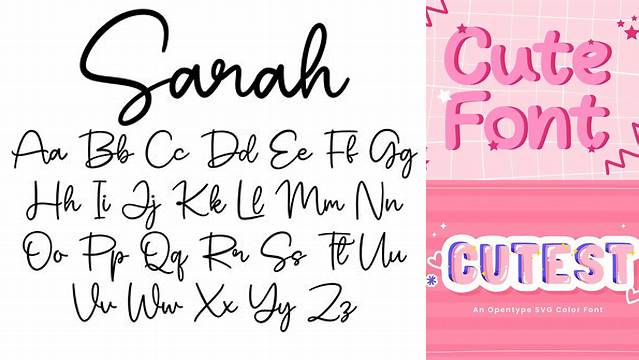
Cute Free Fonts For Procreate: Download Now!
Hey guys! Ready to take your Procreate art to the next level? One of the easiest ways to add personality and flair to your creations is by using adorable fonts. But let's be real, finding the perfect free cute font can feel like searching for a needle in a haystack. That’s why I've put together this guide to help you discover some amazing, budget-friendly fonts that will make your artwork pop. Get ready to unleash your inner artist with these fantastic finds!
1. The Magic of Cute Fonts in Procreate
Let's kick things off by talking about why free cute fonts for Procreate are so essential for artists. Think about it: a great font can transform a simple illustration into a captivating piece of art. Cute fonts have the power to evoke emotions, add a touch of playfulness, and perfectly complement your designs. Whether you're creating whimsical illustrations, eye-catching social media graphics, or charming hand-lettered quotes, the right font can make all the difference. It's like the cherry on top of your creative sundae! When choosing fonts, consider the overall vibe you're going for. A bubbly, rounded font might be perfect for a children's book illustration, while a quirky, hand-drawn font could add a unique touch to your branding materials. The key is to experiment and find fonts that resonate with your artistic style. Don't be afraid to mix and match fonts to create interesting visual hierarchies and add depth to your designs. Remember, the goal is to enhance your artwork and make it stand out from the crowd, all without breaking the bank.
2. Top Websites for Free Cute Fonts
Alright, let's get down to the good stuff: where can you actually find these free cute fonts for your Procreate projects? The internet is a vast playground of resources, but not all websites are created equal. Here are some of my go-to platforms for discovering awesome fonts without spending a dime. First up, we have Google Fonts. It's a treasure trove of high-quality, open-source fonts that are completely free for personal and commercial use. The best part? You can easily preview the fonts and see how they look with your own text. Next, check out DaFont. This website boasts a massive collection of fonts, ranging from script fonts to display fonts, and everything in between. Just be sure to double-check the license before using a font for commercial projects. Another fantastic option is FontSpace. With a user-friendly interface and a wide selection of free fonts, FontSpace makes it easy to find the perfect font for your needs. Don't forget about Creative Fabrica, which offers a mix of free and premium fonts. They often have freebies available, so keep an eye out for those! Lastly, explore MyFonts, a popular platform for discovering unique and professional fonts. While they primarily offer paid fonts, they occasionally have free font deals that are worth checking out. With these resources at your fingertips, you'll be well on your way to building a killer font library.
5. Pairing Fonts for Maximum Impact
Using free cute fonts effectively isn't just about finding a single awesome font; it's also about pairing fonts strategically to create visual harmony. Think of font pairing as a dance – you want to choose fonts that complement each other and create a balanced composition. One common approach is to pair a display font with a simpler sans-serif font. Display fonts are typically more decorative and eye-catching, while sans-serif fonts are clean and easy to read. For example, you could pair a whimsical script font with a classic sans-serif font like Open Sans or Montserrat. Another popular technique is to pair fonts with contrasting styles. This creates visual interest and helps to differentiate between different elements in your design. For instance, you could pair a bold, modern font with a delicate, hand-drawn font. When pairing fonts, pay attention to the font's weight, size, and spacing. You want to ensure that the fonts are legible and don't clash with each other. A good rule of thumb is to limit yourself to two or three fonts per design to avoid overwhelming the viewer. There are also online tools that can help you find font pairings, such as FontPair and Typewolf. These tools provide curated font combinations that are sure to elevate your designs. Experiment with different pairings and see what works best for your aesthetic. Remember, the goal is to create a visually appealing and cohesive design that effectively communicates your message.
6. Best Free Script Fonts for Procreate
Let's dive into some specific font styles, starting with free cute script fonts for Procreate. Script fonts are elegant, flowing fonts that resemble handwriting. They're perfect for adding a touch of sophistication and personality to your designs. Some of my favorite free script fonts include Hello Sunshine, a playful and whimsical font that's perfect for invitations and greeting cards. Another great option is Lemon Jelly, a sweet and charming font that's ideal for branding and social media graphics. If you're looking for something a bit more modern, check out Mightype, a bold and stylish script font that's perfect for logos and headlines. For a vintage-inspired look, consider using Grand Hotel, a classic script font that evokes the glamour of the Art Deco era. When using script fonts, it's important to ensure they're legible, especially at smaller sizes. Avoid using script fonts for large blocks of text, as they can be difficult to read. Instead, use them sparingly for headings, logos, or short quotes. Also, pay attention to the spacing between letters, as this can affect the font's readability. With a little practice, you'll be able to master the art of using script fonts to create stunning designs. Don't be afraid to experiment with different styles and find the ones that best suit your creative vision.
7. Adorable Display Fonts You Can Get for Free
Next up, we have adorable display fonts – the attention-grabbing stars of the font world. Display fonts are designed to make a statement, with their unique shapes and eye-catching details. They're perfect for headlines, logos, and other design elements that need to stand out. One of my favorite free display fonts is Bubbly Functional, a fun and playful font that's sure to put a smile on your face. Another great option is Milkshake, a sweet and creamy font that's perfect for branding and packaging designs. If you're looking for something a bit more quirky, check out Chewy, a bold and cartoonish font that's ideal for children's books and animations. For a vintage-inspired look, consider using Amatic SC, a versatile hand-drawn font that's perfect for posters and signage. When using display fonts, remember that a little goes a long way. Because they're so visually striking, it's best to use them sparingly and pair them with simpler fonts for body text. Also, pay attention to the font's size and spacing, as this can greatly affect its impact. With the right display font, you can transform your designs from ordinary to extraordinary. So, go ahead and experiment with different styles and find the ones that speak to your unique aesthetic.
8. Sans-Serif Fonts: Clean and Cute Options
Now, let's talk about sans-serif fonts, which are known for their clean, modern look. These fonts are incredibly versatile and work well in a variety of design contexts. They're also a great choice for body text, as they're easy to read at smaller sizes. One of my favorite free sans-serif fonts is Montserrat, a geometric font that's both stylish and functional. Another excellent option is Open Sans, a classic font that's widely used for web design and print materials. If you're looking for something a bit more playful, check out Nunito, a rounded font that's perfect for children's designs. For a modern and minimalist look, consider using Lato, a sleek font that's ideal for branding and UI design. When using sans-serif fonts, pay attention to the font's weight and spacing. A heavier font weight can add emphasis to your text, while a lighter weight can create a more delicate look. Also, be sure to adjust the letter spacing to improve readability. With the right sans-serif font, you can create designs that are both visually appealing and easy to understand. So, explore different options and find the ones that best suit your needs. Remember, simplicity is key when it comes to sans-serif fonts, so don't be afraid to embrace a minimalist approach.
9. Serif Fonts with a Touch of Cuteness
Moving on to serif fonts with a touch of cuteness! Serif fonts are characterized by the small decorative strokes (serifs) at the end of each letter. They often have a more traditional and elegant feel than sans-serif fonts, but that doesn't mean they can't be cute! One of my favorite free serif fonts with a playful twist is Playfair Display, a high-contrast font that's perfect for headlines and titles. Another great option is Merriweather, a readable and friendly font that works well for both body text and headings. If you're looking for something a bit more whimsical, check out Bitter, a sturdy and slightly quirky font that's ideal for branding and packaging. For a vintage-inspired look, consider using Arvo, a geometric slab-serif font that's perfect for posters and signage. When using serif fonts, pay attention to the font's size and spacing. A larger font size can emphasize the font's decorative details, while a smaller size can make it more subtle. Also, be sure to adjust the letter spacing to improve readability. With the right serif font, you can add a touch of elegance and charm to your designs. So, experiment with different styles and find the ones that best complement your creative vision.